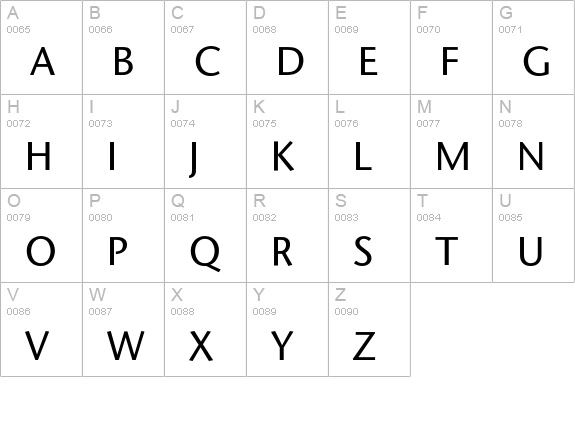
Stone Sans Medium is a balanced, medium-weight variant in the Stone typeface family \xE2\x80\x94 well suited to sub-headlines, navigation, and balanced editorial work.
Stone Sans Medium is a versatile and modern typeface that strikes the perfect balance between elegance and functionality. With its clean lines and sturdy appearance, this font exudes a sense of strength and confidence. Whether used for headlines, body text, or graphic design projects, Stone Sans Medium delivers a polished and professional look that is sure to make a statement. The best part? Stone Sans Medium is available for free download at FontsMarket.com. This means that you can easily access this high-quality font without any cost, making it an ideal choice for designers, students, and anyone looking to enhance their projects with a stylish and reliable typeface. Don't miss out on the opportunity to elevate your designs with Stone Sans Medium. Download it today and add a touch of sophistication to your work!